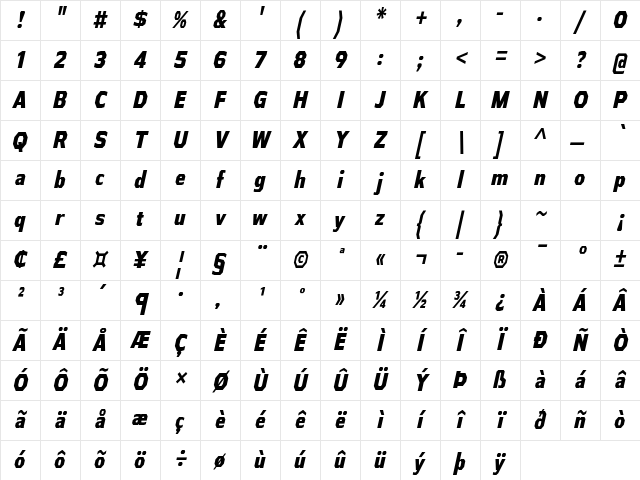
Complete Athabasca Condensed ExtraBold Italic glyph index. Displaying only characters natively supported by Athabasca Condensed ExtraBold Italic font.
Athabasca is a composed and adaptable typeface that performs quietly and consistently across a wide range of design contexts. The slanted form adds forward momentum and visual energy. Its bold stroke weight gives it real presence on the page. Its narrow stance lets it pack a punch even in space-constrained designs.
Pro Tip: Use Athabasca for emphasis, pull quotes, and subheadings where its slanted energy can add rhythm to the layout.